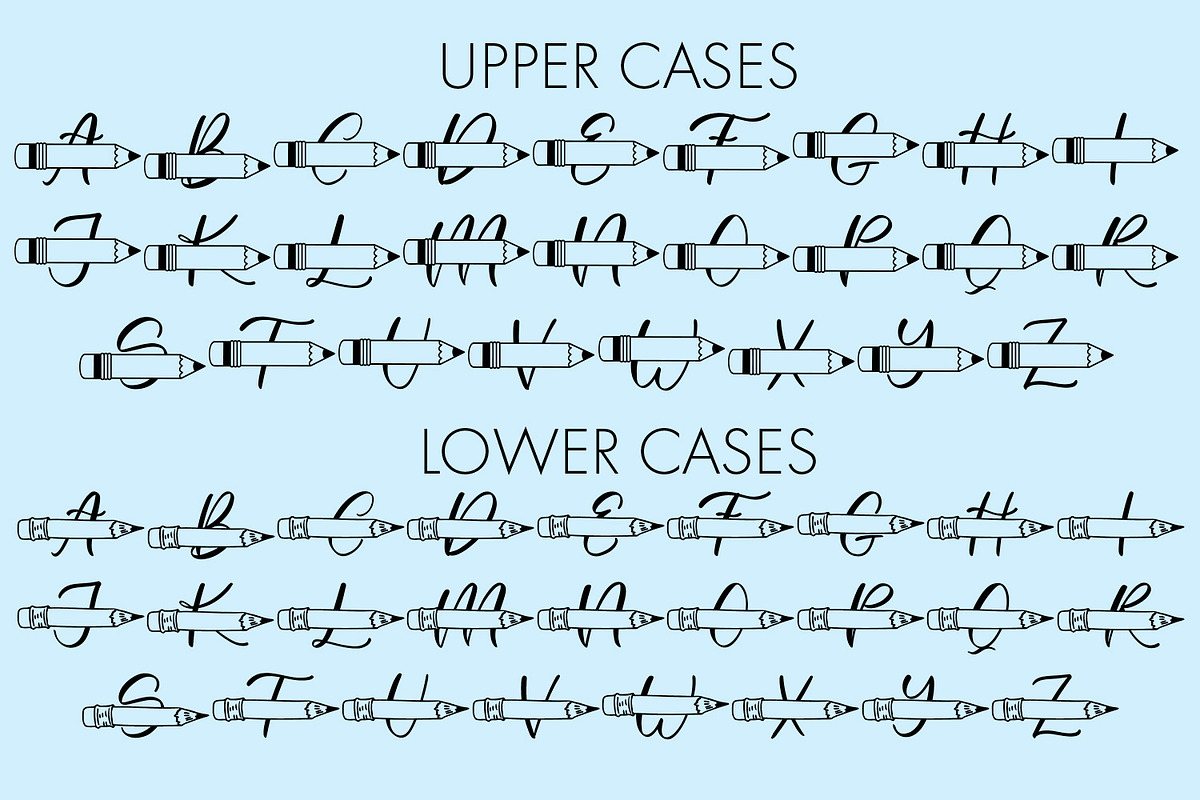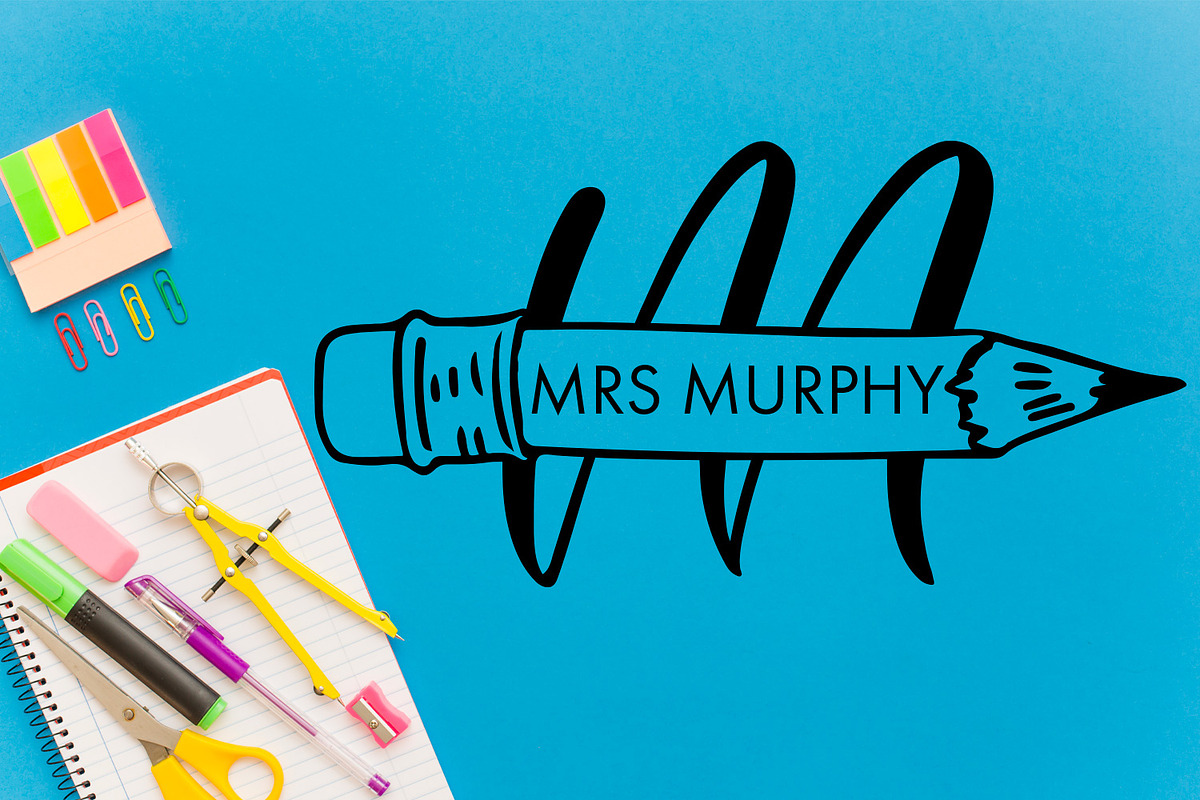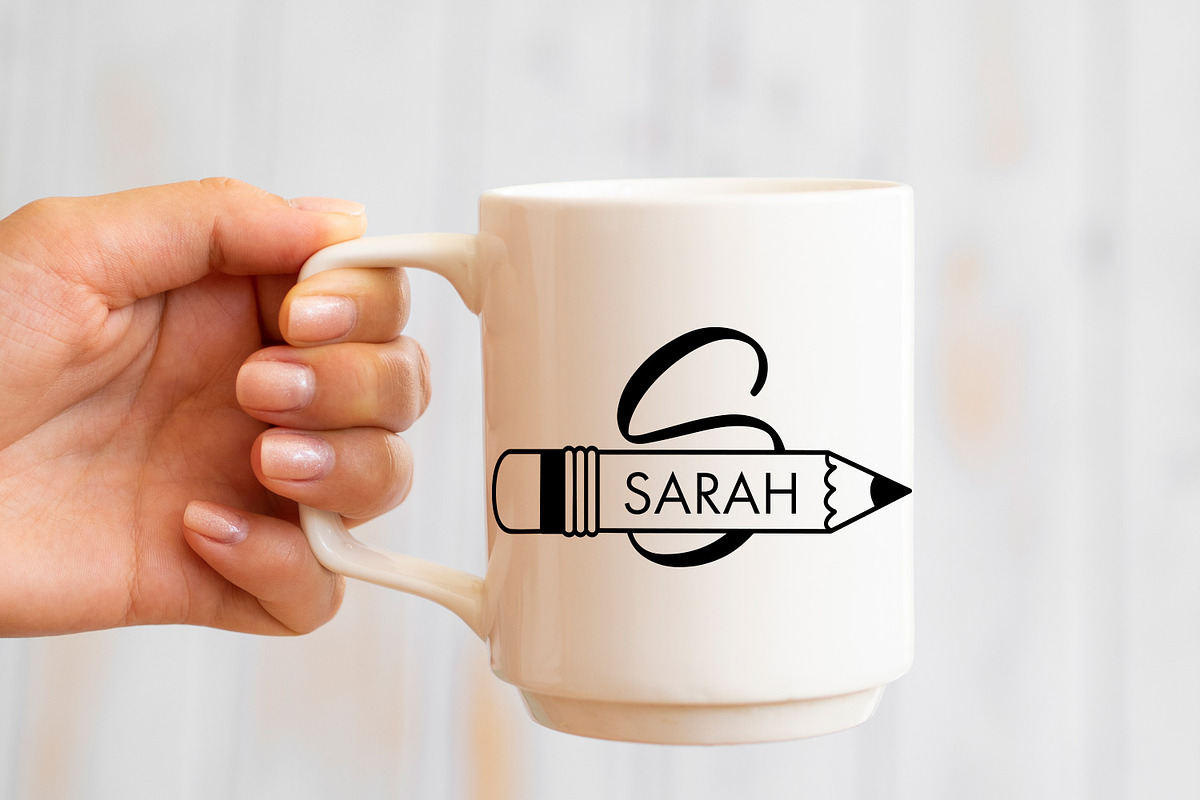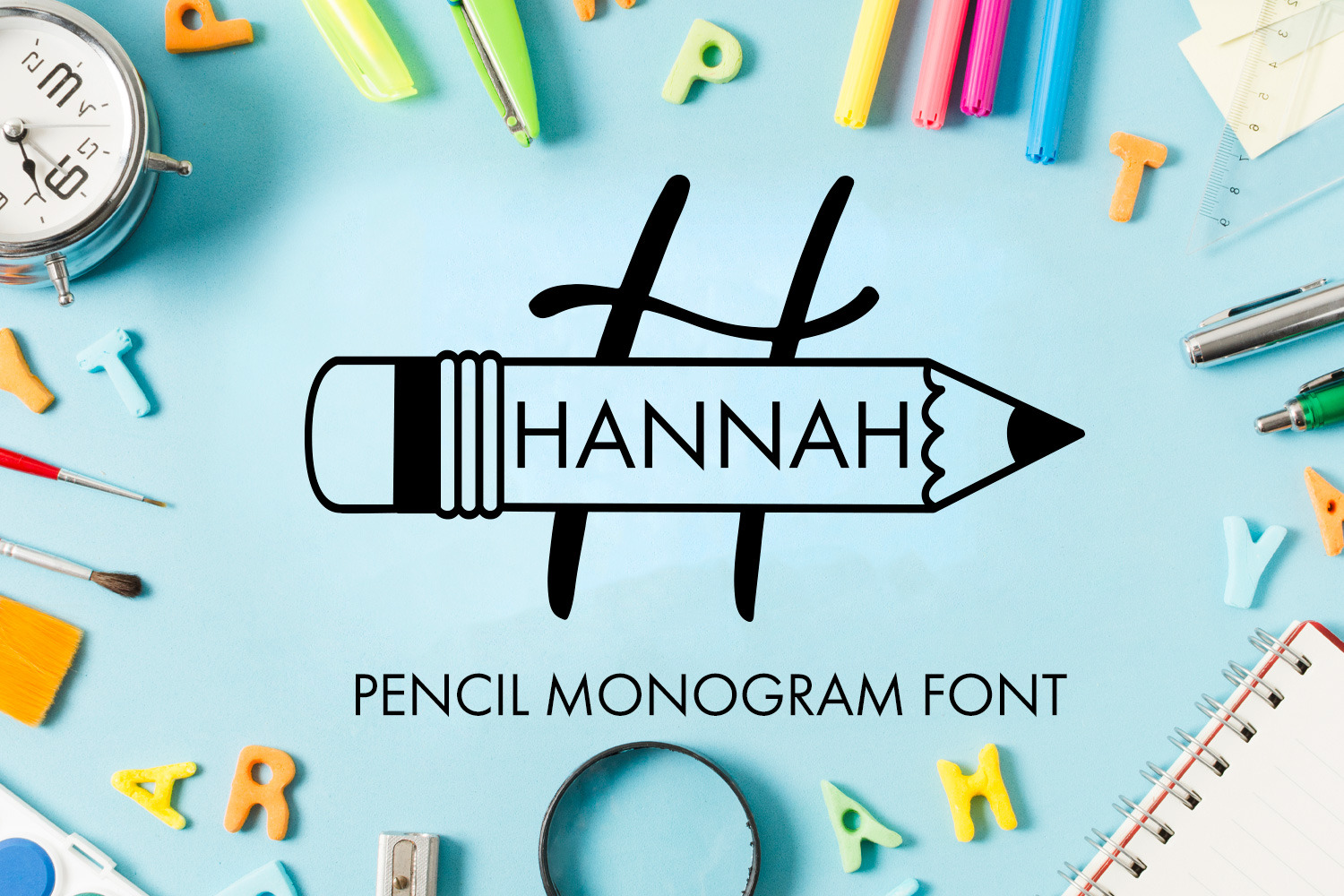
Pencil Monogram Font
Unleash your creativity with "Pencil Monogram," a charming handwritten monogram font that adds a playful twist to personalized designs. This unique font features two delightful pencils elegantly intertwined through each letter, offering the perfect canvas to write a name or message within the pencil's path. With a touch of whimsy and a dash of nostalgia, "Pencil Monogram" lets you craft customized creations that are as unique as you are. Let your imagination flow and make your mark with this delightful font.
- Pencil Monogram Font - Comes with Uppercase A-Z and lowercase a-z letters, 0-9 numbers, stylistic alternates, limited punctuation and supports Western European Languages